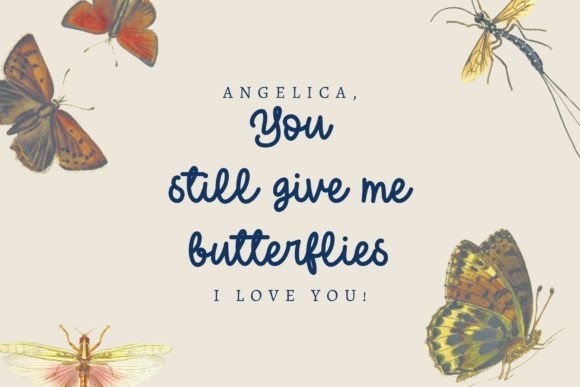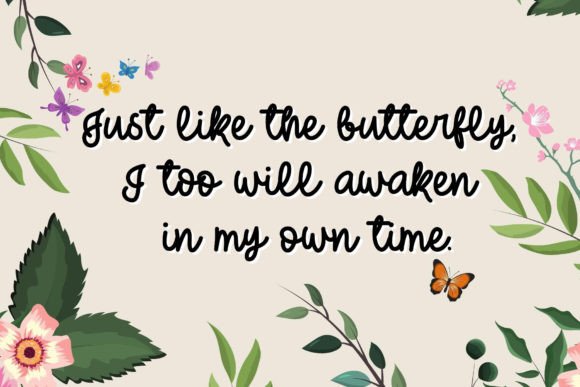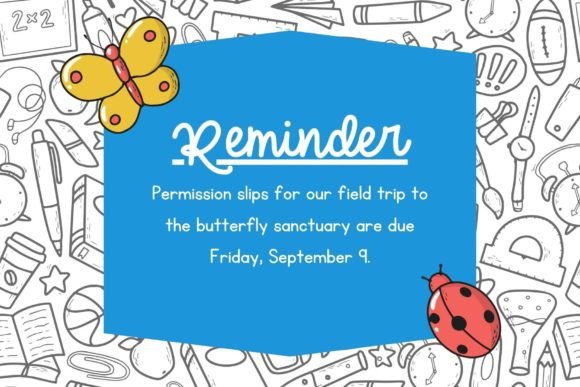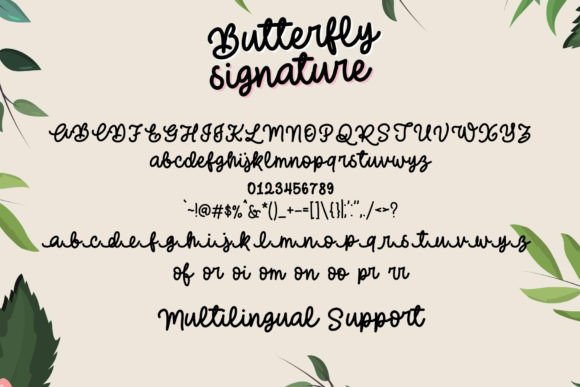
The Perfect Touch: Unveiling the Butterfly Signature Font
Enter the Butterfly Signature Font, a delightful handwritten script font that’s sure to capture your heart and your audience’s attention. This charming font is more than just a pretty face – it’s a valuable asset to any designer’s library, capable of adding a touch of personality and whimsy to even the most straightforward projects. Whether you’re crafting invitations, social media graphics, or editorial content, the Butterfly Signature Font is an excellent choice to consider.
Butterfly Signature Font Key Features
- Font Family: A unique, handwritten font designed to mimic a signature.
- Font Size: Scalable, suitable for use in various font sizes, from 12pt to 72pt.
- Resolution: Optimized for use at 300 DPI (dots per inch) or higher for high-quality printing.
- Unique Characteristics: Features a flowing, cursive design with subtle variations in letterforms, giving it a personal touch.
Butterfly Signature Font Review
Overall, I think the Butterfly Signature Font is a unique and eye-catching choice for those looking to add a touch of whimsy to their designs. ✨ Here are some aspects where it shines:
- Uniqueness: The font’s distinctive, flowing design is sure to stand out in a crowd.
- Expressiveness: It’s perfect for creating dynamic, expressive text that’s sure to grab attention.
- Legibility: Despite its whimsical nature, the font is surprisingly easy to read, even at smaller sizes.
However, as with any font, there are some limitations to consider. ⚠️ Here are a few:
- Readability in small sizes: While the font is legible at larger sizes, it can become difficult to read at very small sizes.
- Limited versatility: The font’s unique style may not be suitable for all design projects or audiences.
- Overuse: Its distinctive look can become overwhelming if overused in a design.
Overall, I think the Butterfly Signature Font is a great choice for designers looking to add a touch of personality to their work. Just be mindful of its limitations and use it judiciously.
The Butterfly Signature Font is perfect for:
- Personalized stationery and invitations.
- Wedding and event invitations.
For the best results, use the font in combination with elegant and whimsical graphics and design elements.
Q: What is the minimum font size recommended for the Butterfly Signature Font?
We recommend using the Butterfly Signature Font at a minimum size of 14 points for optimal readability. However, you can adjust the font size to suit your design needs. Keep in mind that smaller font sizes may affect the legibility of the text.